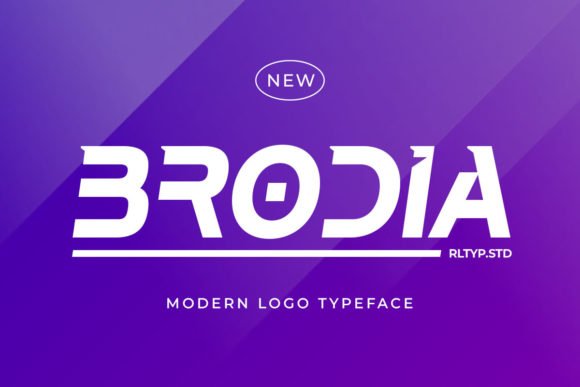
Introducing the Future of Typography: Brodia Font
As designers, we’ve all been there – staring at a blank canvas, searching for that elusive spark to ignite our creativity. It’s in these moments that we’re reminded of the power of typography to elevate our work and transport our audience to new dimensions. And that’s exactly what the Brodia Font aims to do – inject a dose of luxury and sophistication into your design projects.
| 👤 Author | Rillatype |
Brodia Font is a modern masterpiece that draws inspiration from the cutting-edge technology of today and tomorrow. With its sleek lines and futuristic aesthetic, it’s the perfect tool for designers who want to give their projects a sleek, high-end feel. Whether you’re working on a luxury brand, a futuristic concept, or simply a design that pushes the boundaries of what’s possible, the Brodia Font is an invaluable addition to your toolkit.
- Unique Characteristics: Brodia Font features a unique blend of modern and vintage elements, making it suitable for a wide range of design applications, from logos to advertising materials.
Brodia Font Review
I recently had the chance to work with the Brodia font, and I’m excited to share my honest review.
- The Brodia font has a unique and elegant feel to it, perfect for designs that require a touch of sophistication.
- It’s highly legible, making it suitable for body text and headings alike.
- The font comes in a variety of weights and styles, allowing for a high degree of customization.
- The font may be a bit too ornate for some designs, potentially overwhelming the content.
- It’s not ideal for use in very small text sizes, as the details may become lost.
- The font’s elegance may make it less suitable for more casual or playful designs.
Overall, I think the Brodia font is a great addition to any designer’s toolkit. While it may not be the best choice for every project, it’s certainly a versatile and stylish option. With its elegant feel and high level of customization, it’s perfect for designs that require a touch of sophistication.
For the best results, use the Brodia Font with a clean and simple design.
For the best results, use the Brodia Font with a vector-based design in Illustrator or a layered design in Photoshop.
For the best results, use the Brodia Font with a clean and simple design.
Some common use cases for Brodia Font include:
- Food and drink branding
- Travel and tourism branding
Remember to use the Brodia Font consistently throughout your design to create a cohesive look and feel.
Comparison: While Brodia Font has a more playful and casual feel, Great Vibes is more formal and elegant, making it a better choice for designs that require a touch of sophistication.
Comparison: While Brodia Font has a more playful and quirky feel, Pacifico is more relaxed and casual, making it a better choice for designs that require a beachy or vintage vibe.